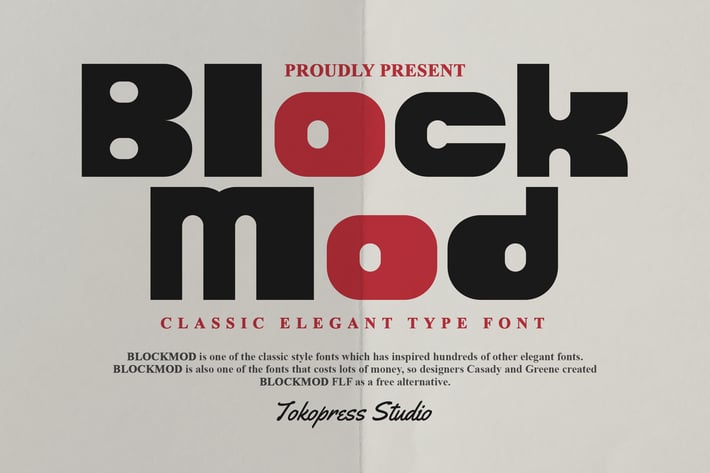
Blockmod - Block modern font
Blockmod - Block Modern Font
Blockmod is a modular display typeface with strong geometric shapes, expressive curves, and assertive proportions. Built with a retro-futuristic soul, it offers bold, squared letterforms and closed counters that deliver maximum impact in minimal space. The font’s dense structure and grid-like rhythm give it a confident, urban energy—ideal for creative industries that value bold design with a contemporary twist.
Whether you're designing posters, music covers, tech packaging, or youth-oriented branding, Blockmod brings a sense of structured boldness and visual punch that stands out in any layout.
From music branding to editorial spreads and eye-catching packaging, Blockmod thrives in creative environments that call for attention and attitude. It’s particularly well-suited for tech startups, fashion streetwear, vinyl cover designs, or campaigns targeting Gen Z. The font’s unique visual system makes it an essential tool for designers who want to establish instant recognition and modernist character without compromising readability.
Key Features :
Modern Block Construction
• Built on a modular grid with bold, symmetrical forms and thick structure.
Strong Visual Voice
• Makes a statement with heavy contrast and compact density.
Retro-Futuristic Appeal
• Inspired by brutalist and mid-century modern typographic heritage—perfect for trend-conscious design.
Optimized for Display
• Works best in large-scale layouts like posters, packaging, billboards, or merchandise branding.